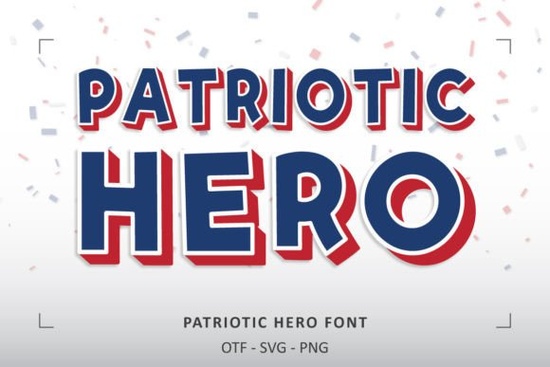
If you're working on a Memorial Day or 4th of July project, the Patriotic Hero Font is worth a close look. It features red, white, and blue colors built right into the letterforms no extra layering needed. Whether you're designing t-shirts, greeting cards, stickers, or social media graphics, this font brings a bold, eye-catching patriotic feel to any layout.
What Makes This Font Stand Out?
Most patriotic fonts rely on outlines or separate color layers to achieve a red-white-and-blue look. The Patriotic Hero Font has the color baked into the font file itself. Each letter carries a layered, multi-color design that gives your text an instant patriotic punch.
The color symbolism is intentional:
- Red hardiness and valor
- White purity and innocence
- Blue vigilance, perseverance, and justice
It has a casual, cool style that works well for projects where you want the text to stand out without looking too formal. Think t-shirt designs, restaurant menus, blog headers, book covers, and party invitations.
What Can I Create With It?
Here are a few project ideas that work especially well with this font style:
- T-shirts and apparel Great for print-on-demand sellers running seasonal patriotic collections
- Greeting cards Memorial Day thank-you cards or 4th of July party invitations
- Stickers and decals Use the black version with a Cricut for vinyl stickers
- Social media graphics Quick, bold text for holiday sale posts or event announcements
- Restaurant menus Especially for BBQ joints or diners running holiday specials
- Blog headers and website banners Seasonal blog posts about patriotic holidays
- Book covers and interior designs Any project with a casual, Americana vibe
Tips for Getting the Best Results
A few things I've picked up from working with color fonts that might save you some time:
- Use a larger font size. Color fonts look their best at bigger sizes. At very small sizes, the color details can get muddy or hard to read.
- Pair it with a simple sans-serif. If you're using this font for a headline, pair body text with a clean, simple typeface so the design doesn't feel too busy.
- Test the black version for cutting projects. If you're making stickers or vinyl decals with a Cricut, stick with the black version and add color in your cutting software if needed.
- Layer carefully in Photoshop. If you want to add effects like drop shadows or outlines, flatten the color font layer first or duplicate it effects can sometimes behave oddly with color fonts.
Who Is This Font Best For?
This font is a solid pick for:
- Print-on-demand sellers looking for seasonal bestsellers around patriotic holidays
- Crafters who want a quick, bold design element for party decorations or gifts
- Small business owners running holiday promotions or themed menus
- Bloggers and content creators who need themed graphics a few times a year
- Design hobbyists who just love playing with colorful, fun typefaces
If everything checks out, this font is a fun, practical addition to your design toolkit especially if you create seasonal content or sell patriotic-themed products. It's simple to use once your setup is right, and the built-in color effect saves you the hassle of manually layering red, white, and blue elements.